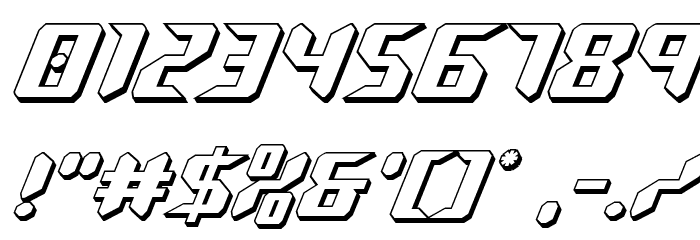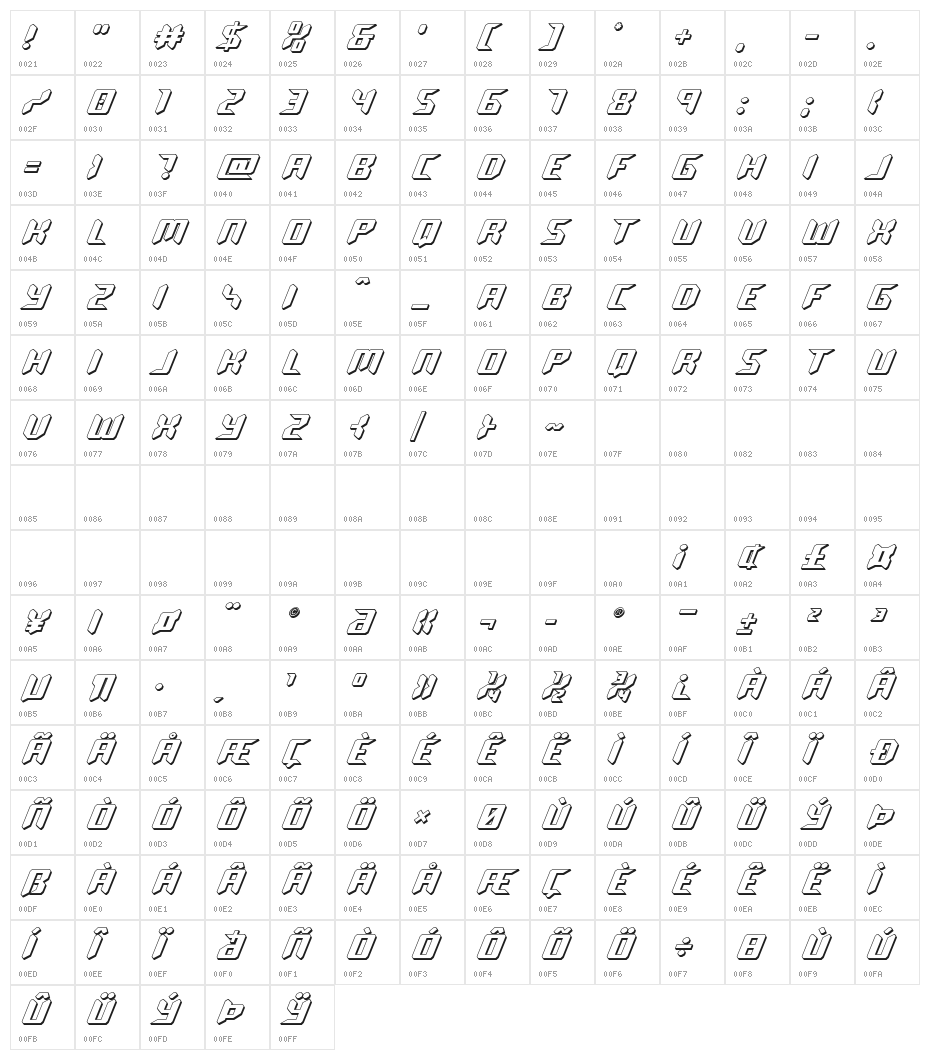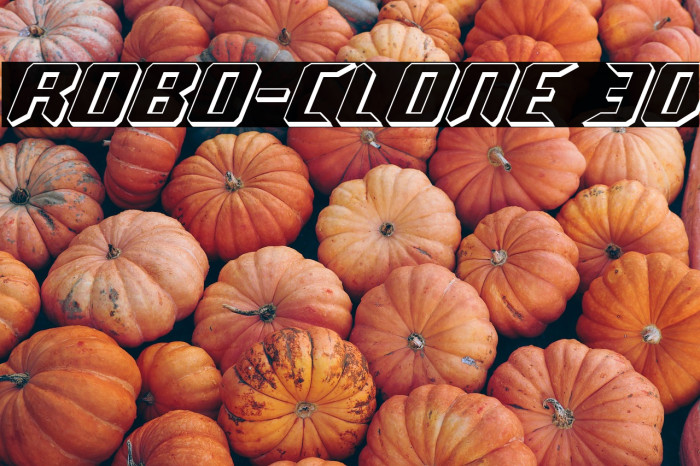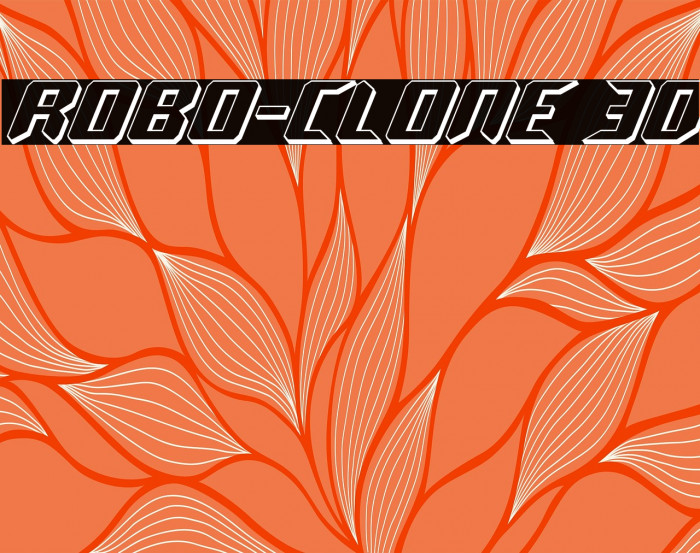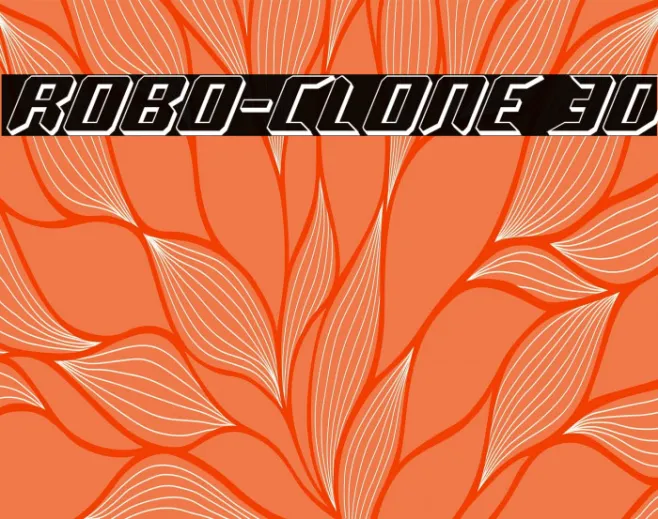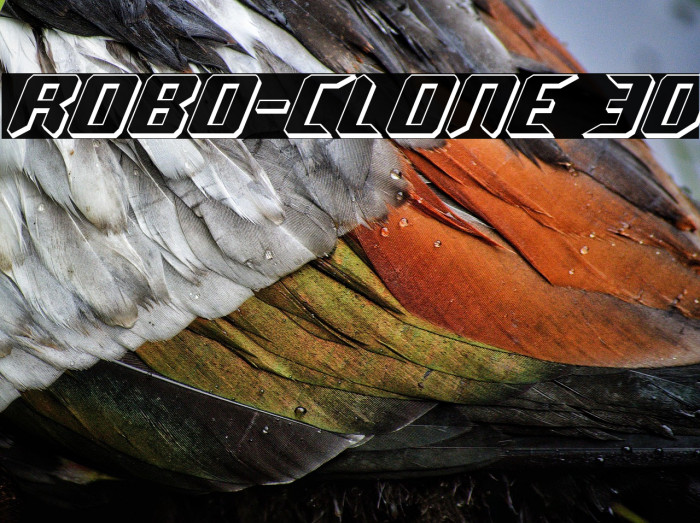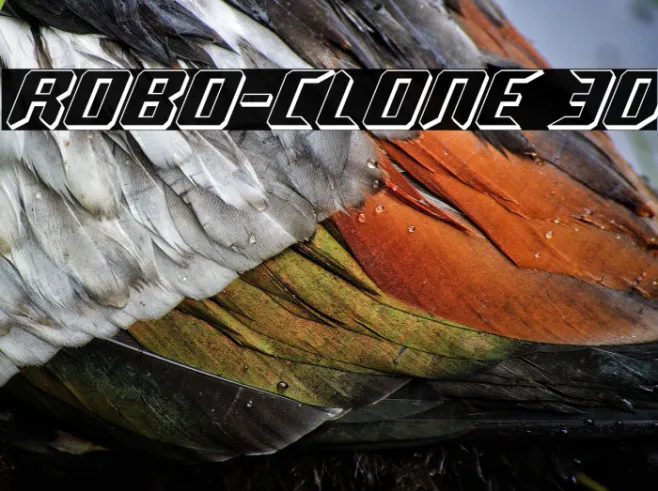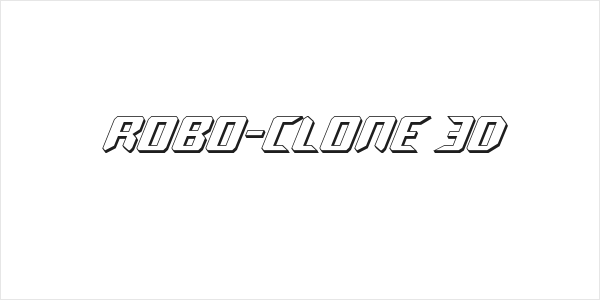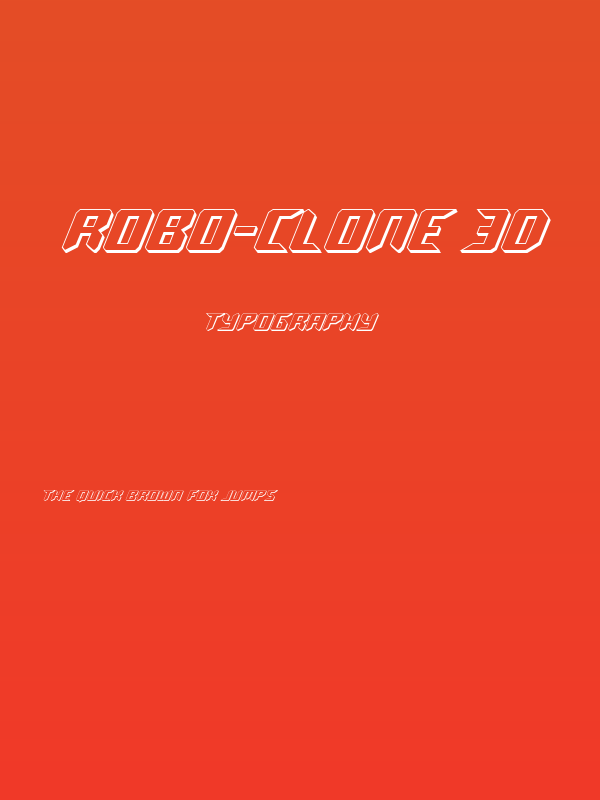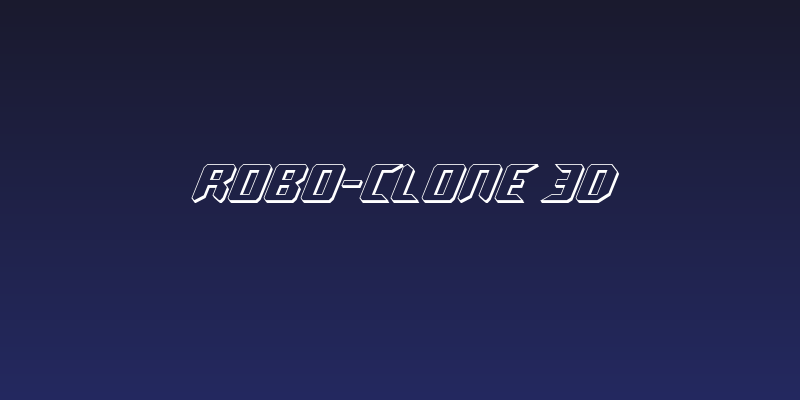
Robo-Clone 3D Font
Robo-Clone 3D Description
This font features a bold, three-dimensional design with a futuristic and robotic aesthetic. The characters are outlined with a shadow effect that gives them a sense of depth and dimension. Each letter and number is crafted with sharp angles and geometric precision, creating a dynamic and eye-catching appearance. The font is highly stylized, making it ideal for projects that require a modern and tech-inspired look. Its distinct style is suitable for headlines, posters, and branding that aim to convey innovation and forward-thinking.
| Proposed Projects | Ideal for technology branding, sci-fi posters, video game titles, and futuristic event promotions. |